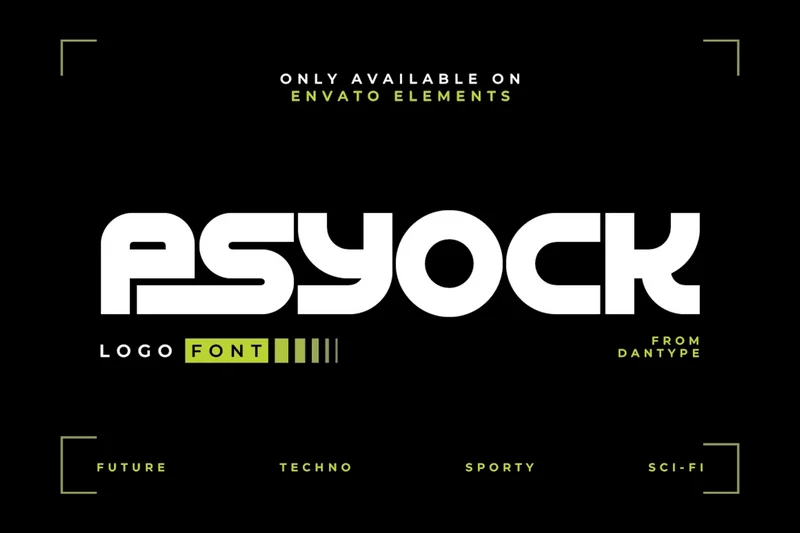
Asyock – Modern Sports Logo Font
Asyock is a futuristic modular sans-serif designed with solid geometry and bold rhythm. Its rounded edges and unified stroke system give it a modern, powerful identity that fits perfectly in digital branding, esports, sci-fi interfaces, and tech product logos. Comes with 30+ creative ligatures and an Oblique version for extra dynamism, perfect for standout titles or futuristic branding compositions.
All Caps, Numbers & Punctuation
Oblique Version
30+ Ligatures